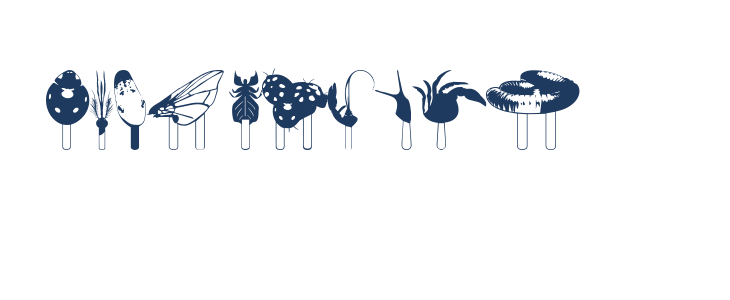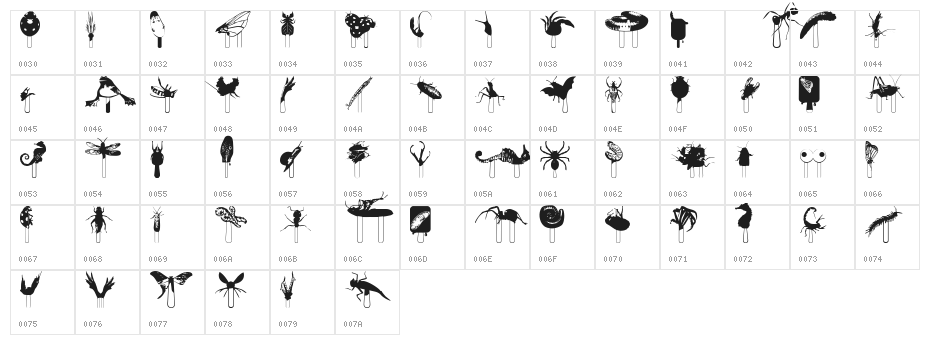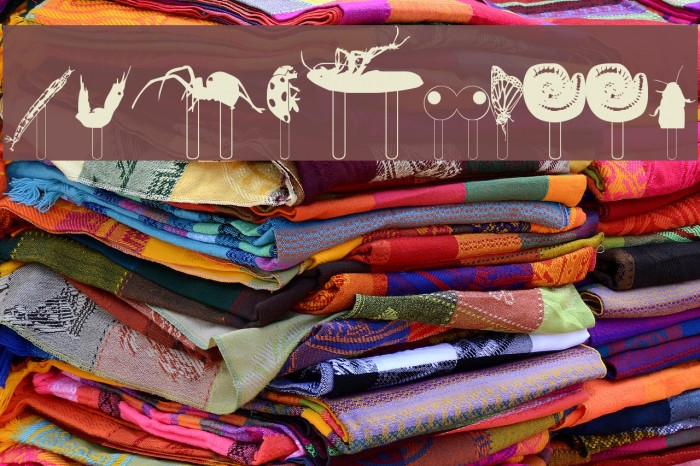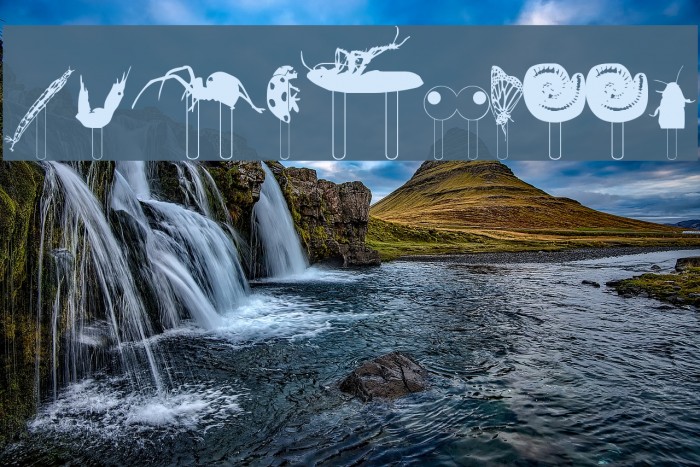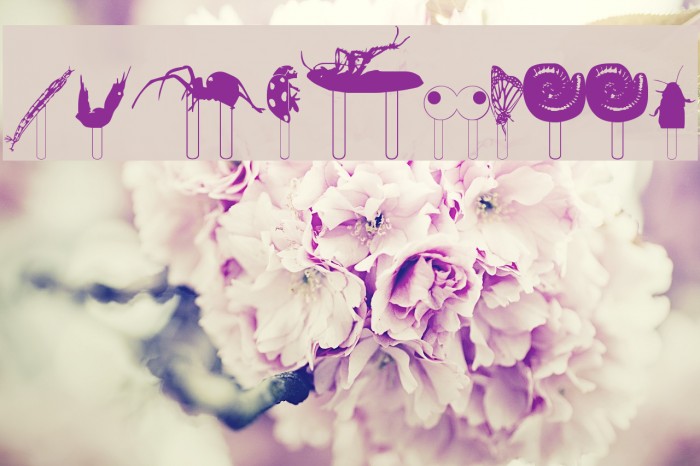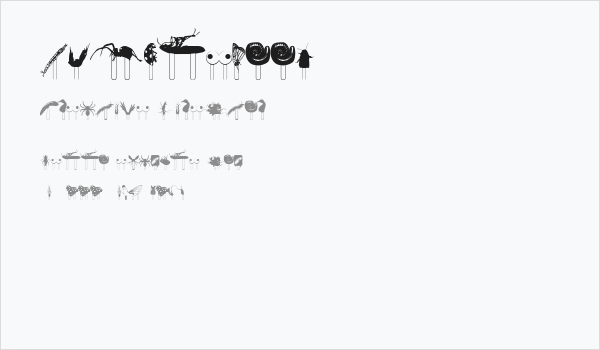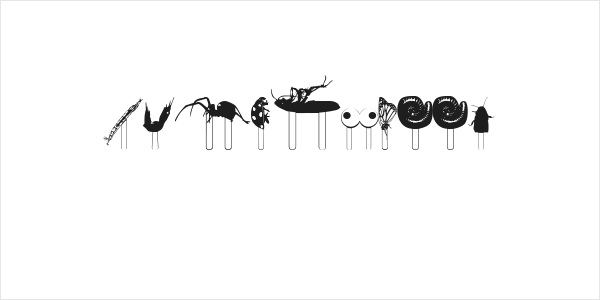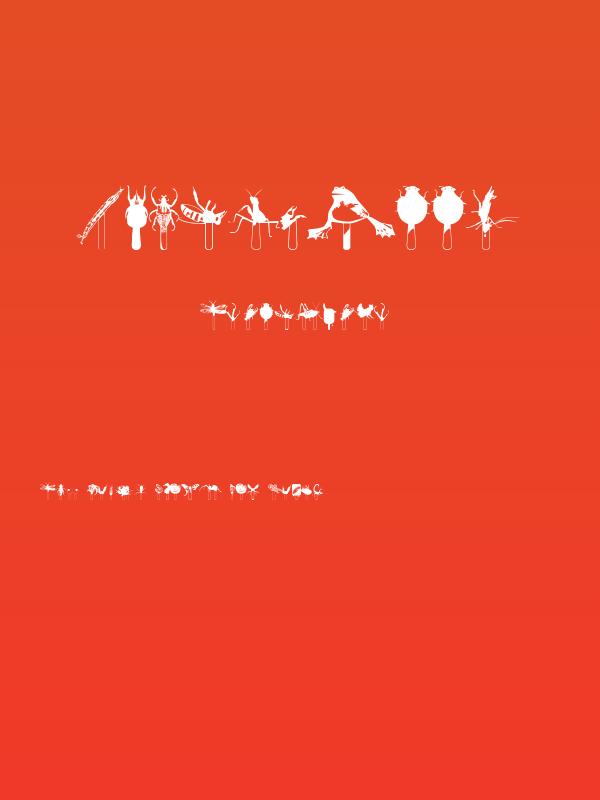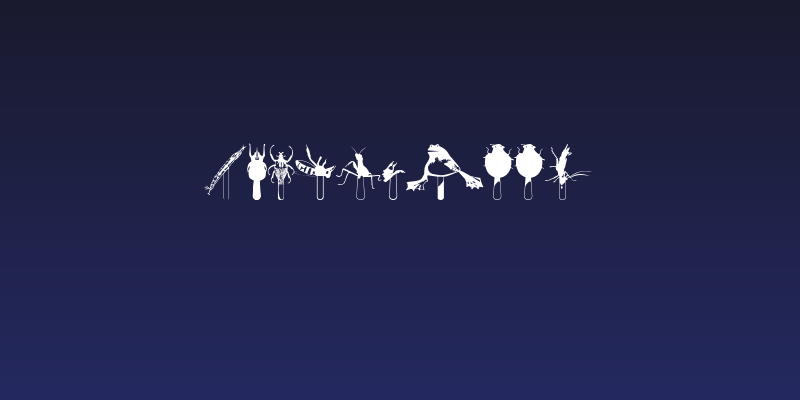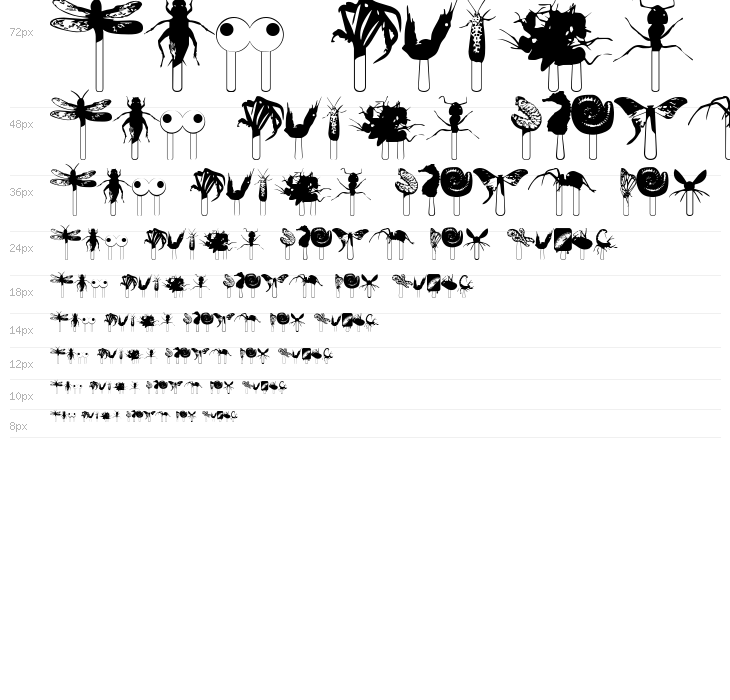
Junglefood Font
Junglefood Description
A highly decorative and playful display font where each character is formed by combining popsicle stick shapes with detailed silhouettes of insects, animals, and plants, creating a whimsical and nature-inspired appearance.
| Overall Style | Decorative, Whimsical, Nature-inspired |
| Use Case | Headlines, Posters, Logos, Themed Events |
| Proposed Projects | ChildrenΓ’β¬β’s book covers, environmental posters, jungle-themed party invitations, educational materials, branding for organic or eco-friendly products. |